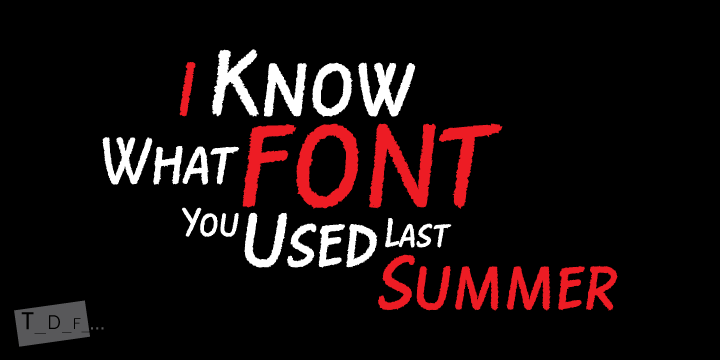
Unleash the rebel within and embrace the raw power of Rough the Type, a font family that commands attention and leaves a lasting impression. This display font, crafted by the visionary Dusan “Dustin� Jelesijevic, is a masterful blend of intimidation and intrigue, inviting you to express yourself with unparalleled boldness.
Immerse yourself in the captivating aura of Rough the Type, a font that embodies the spirit of rebellion and nonconformity. Its rugged edges and gritty textures evoke a sense of defiance, urging you to break free from the ordinary and make a statement that resonates.
With Rough the Type at your disposal, you hold the key to unlocking a world of creative possibilities. Whether you're designing posters that demand attention, creating logos that exude strength, or crafting social media graphics that ignite engagement, this font family is your ultimate weapon of expression.
Defy the mundane and embrace the extraordinary with Rough the Type. Its versatility knows no bounds, catering to a diverse range of projects and industries. From fashion and music to gaming and sports, this font effortlessly adapts to your vision, adding an edge of individuality that sets you apart from the crowd.
Step into the spotlight and let Rough the Type amplify your message. Its striking presence commands attention, ensuring that your words and designs leave an unforgettable impact. Whether you're a seasoned designer or just starting your creative journey, this font family empowers you to communicate with impact and ignite the imaginations of those who encounter it.